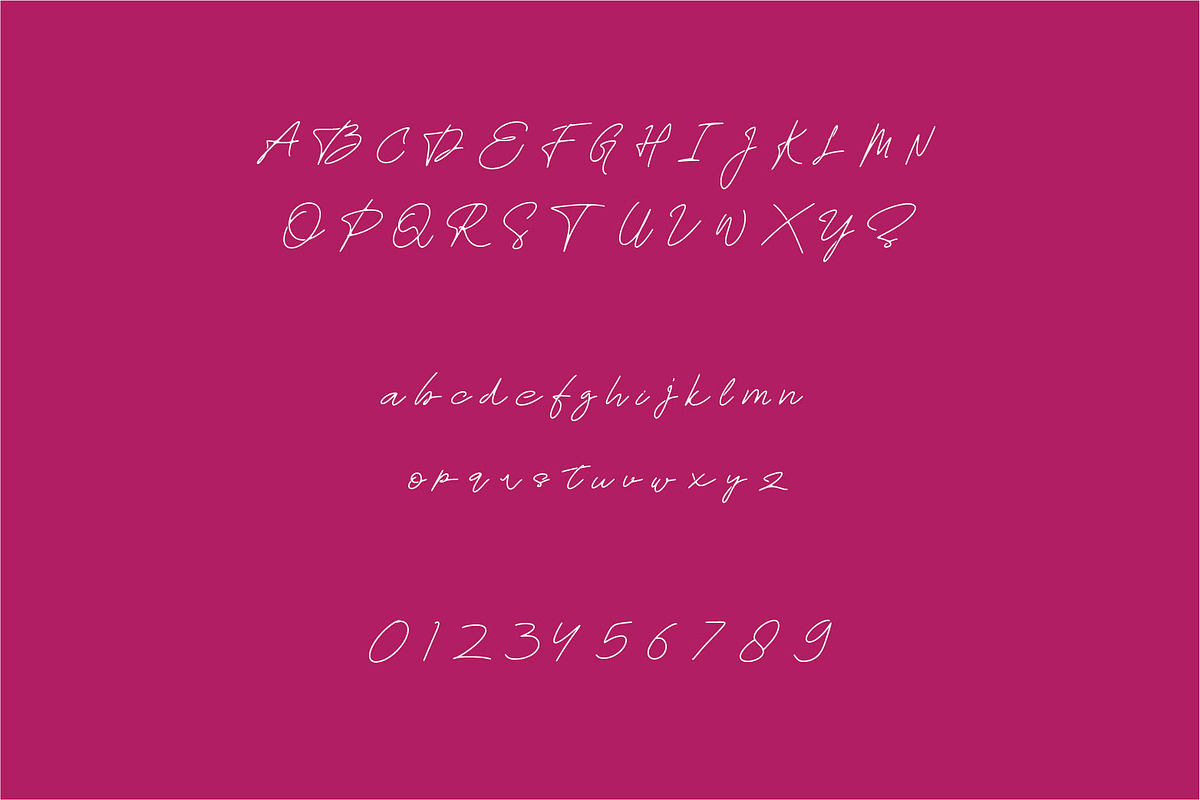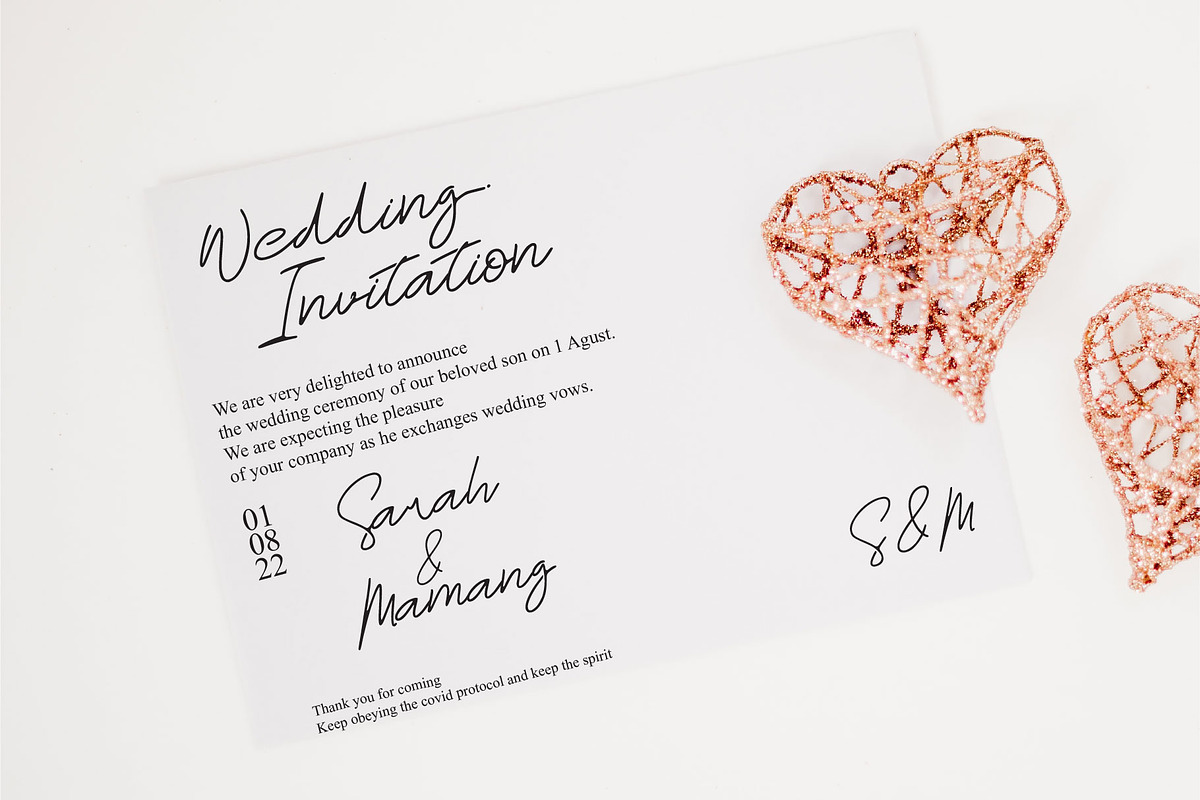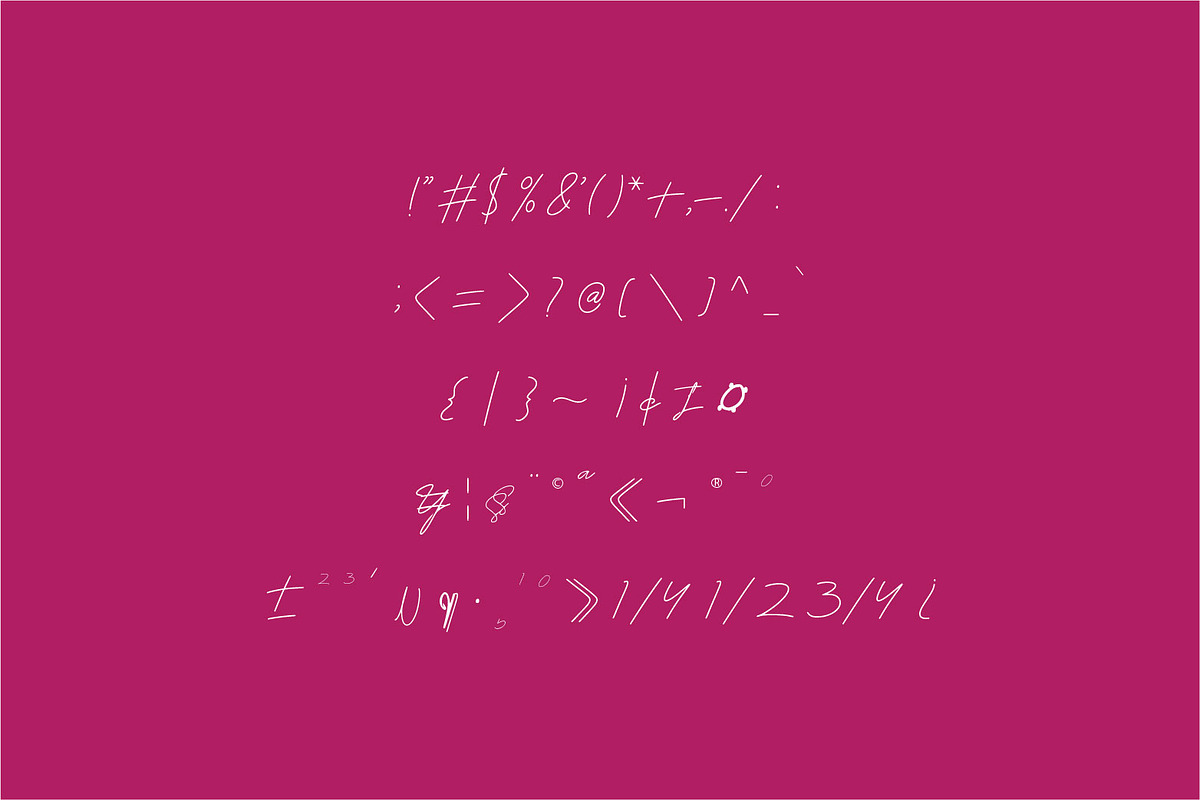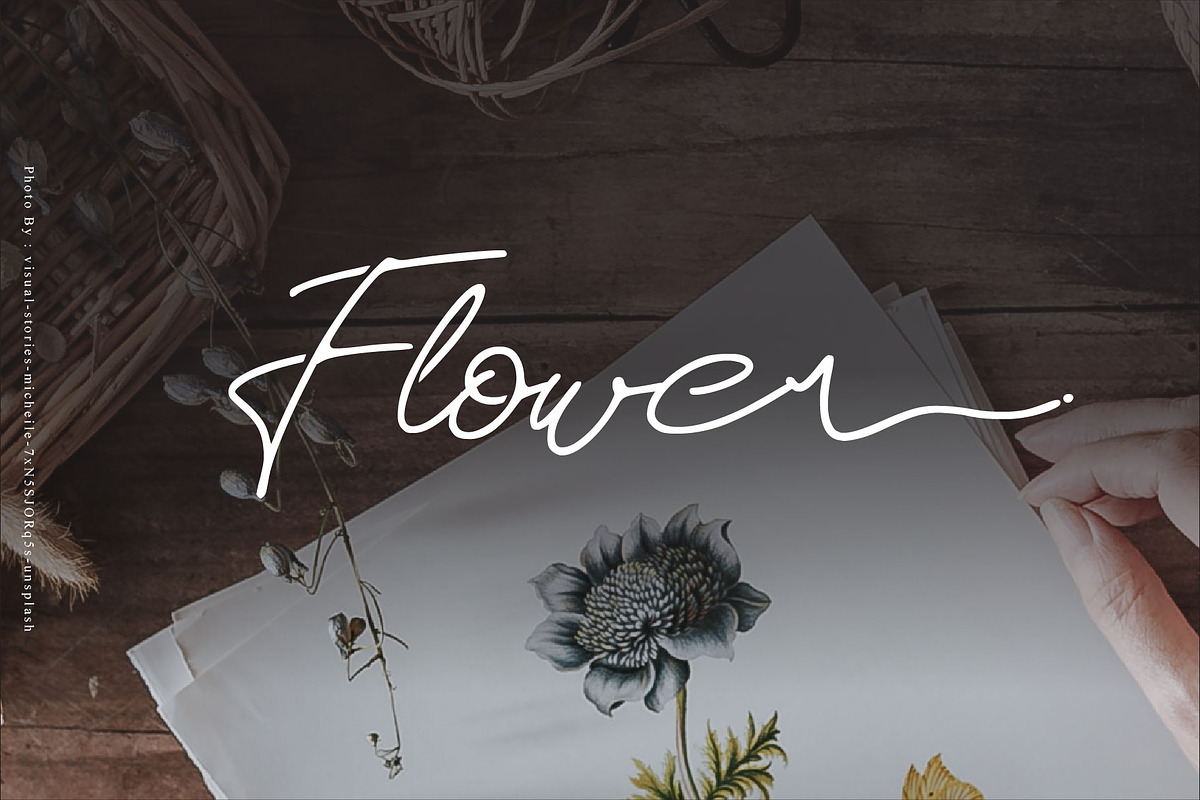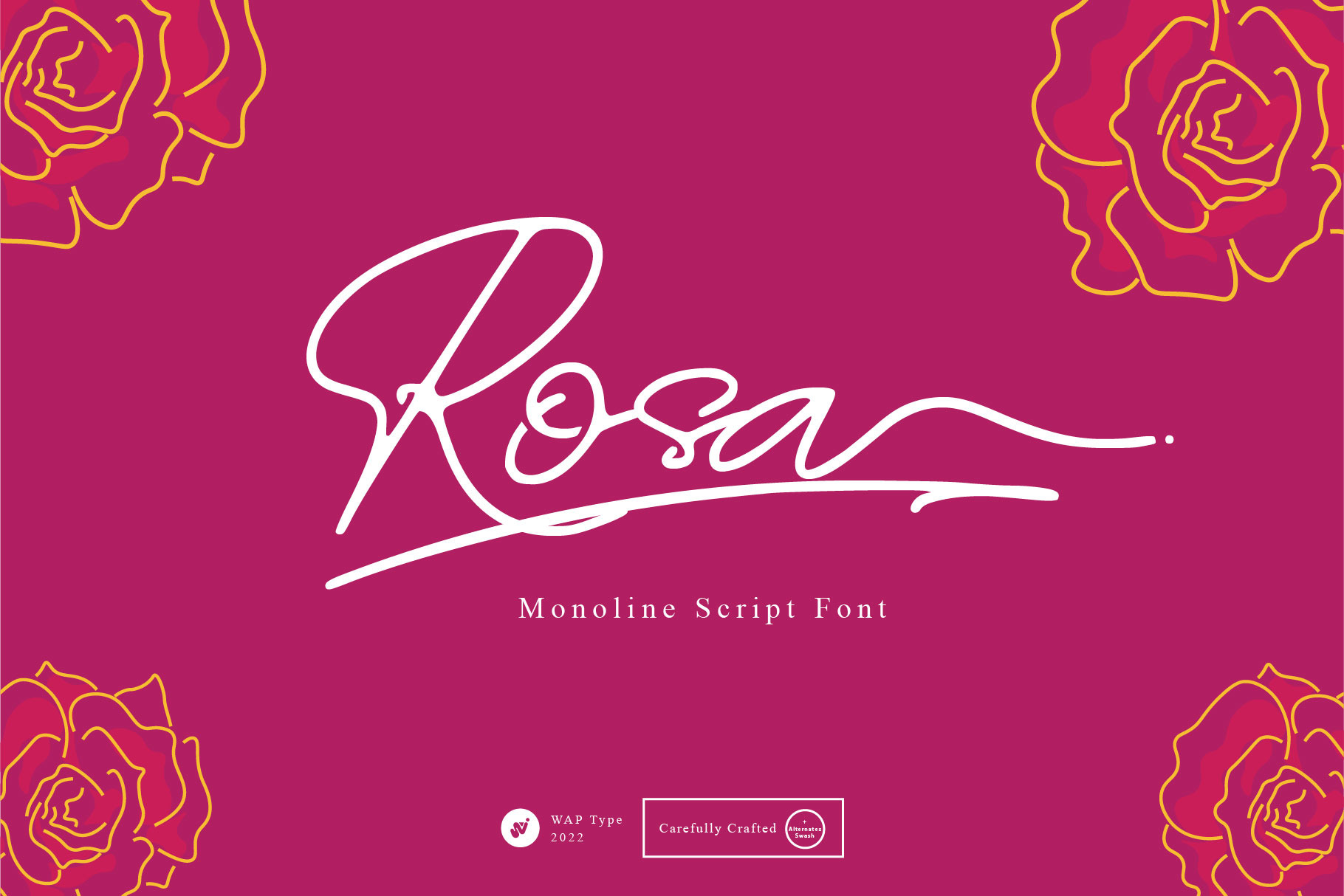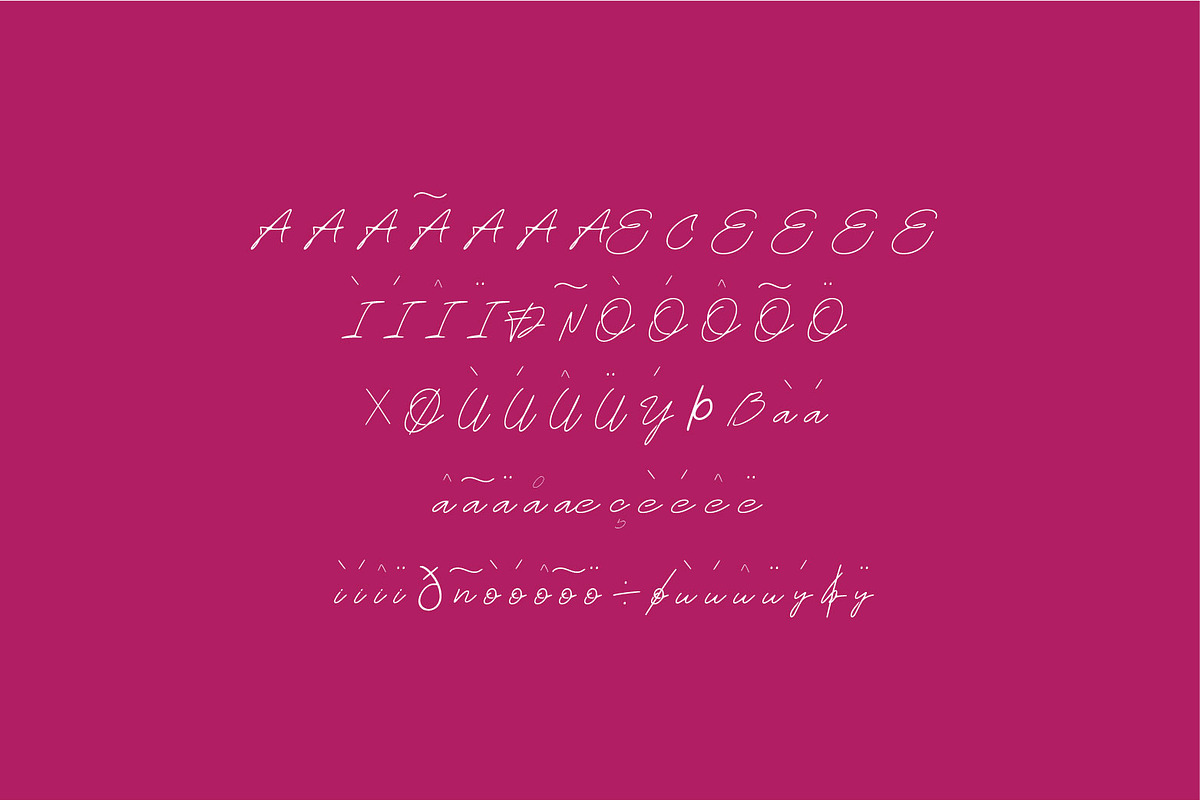
Rosa Signature typeface
Cattoms unique handmade font is for any typhography needed, designed to combine perfectly and allow you to create stunning hand-lettering quickly and easily. Ideal for logos, handwritten quotes, product packaging, header, poster, merchandise, social media & greeting cards, and more.